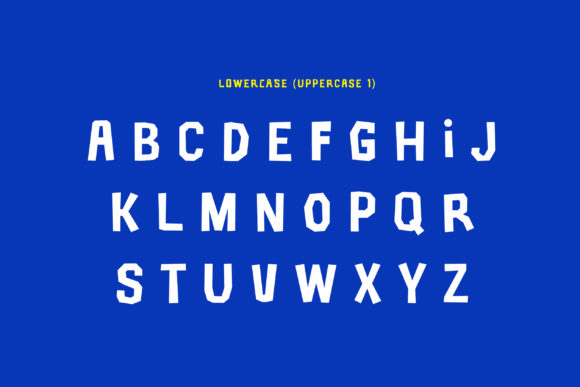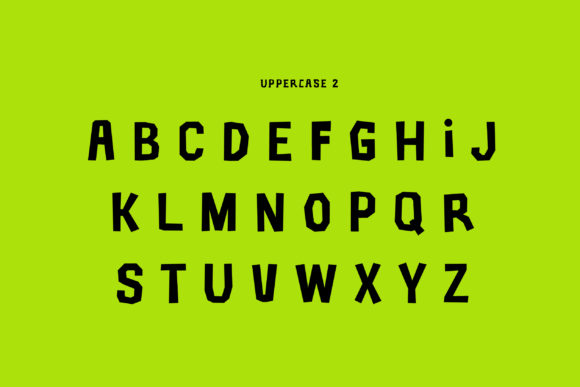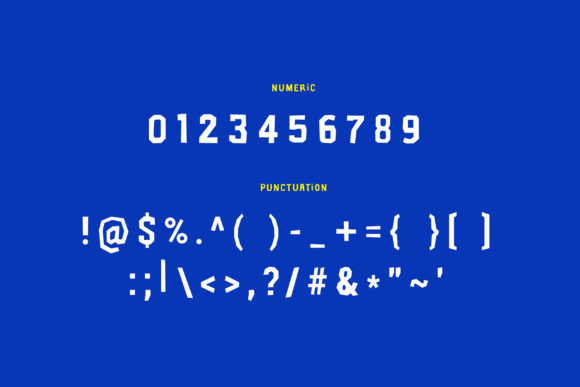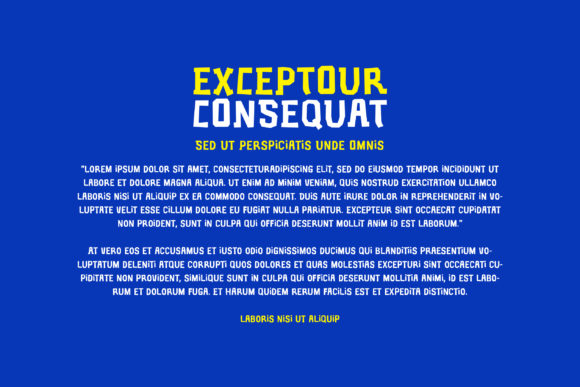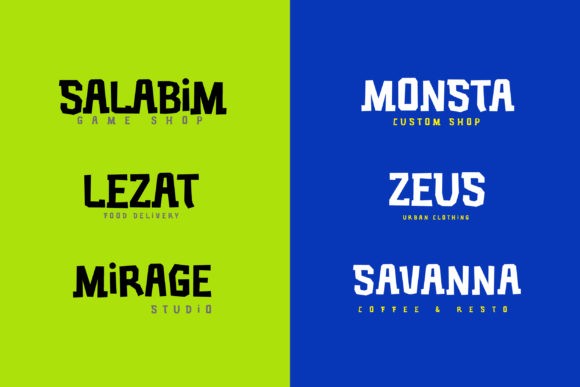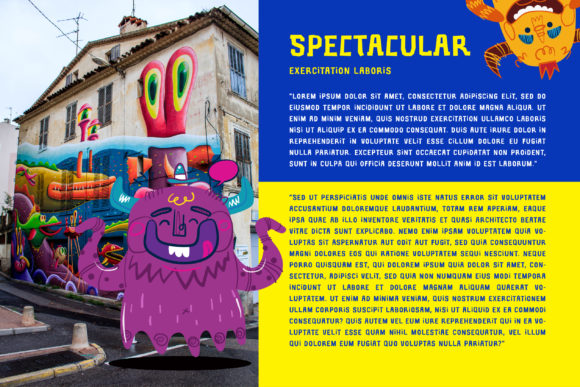
Unleash Your Creativity with Blue Monster Font
You know that moment when you’re brainstorming ideas for a new project, and suddenly, a spark of creativity hits you? It’s like a rush of excitement and inspiration all at once. For designers, this moment is what makes all the hard work worth it. And, trust us, Blue Monster Font can be just the catalyst you need to bring your ideas to life.
This adorable display font is designed to add a playful and whimsical touch to your designs. With its quirky charm, Blue Monster Font is sure to make your creations stand out from the crowd. Whether you’re working on a branding project, a social media campaign, or a digital art piece, this font is the perfect addition to take your designs to the next level.
Blue Monster Font Key Features
- Font Family: Blue Monster Font is a unique, hand-drawn font that features bold, playful lines and curves.
- Unique Characteristics: The font features a distinctive ‘monster’ theme, with bold, expressive lines and quirky characters that add a touch of whimsy to any design.
Blue Monster Font Review
Overall, I’m mixed on the Blue Monster Font. It has some cool aspects, but also some limitations.
- The bold, playful vibe is perfect for kids’ products, cartoons, or whimsical brands.
- The unique, irregular letterforms add a touch of personality to any design.
- The font is highly legible, even at smaller sizes, making it a great choice for body text.
Limitsations ⚠️
- The font can feel overwhelming if used in large quantities or at too large a size.
- The irregular letterforms, while unique, can also make it difficult to pair with other fonts.
- The font lacks a bold weight, which limits its use in headings or titles.
The Blue Monster Font is a fun, attention-grabbing choice for certain projects. While it excels in playfulness and legibility, its limitations prevent me from using it as a go-to font. I’d recommend it for specific, whimsical designs, but be cautious of overusing it.
Use the Blue Monster Font for titles, headings, and emphasis to add a unique touch to your designs.
The Blue Monster Font is commonly used for:
- Children’s book covers and illustrations
- Brand logos and marketing materials